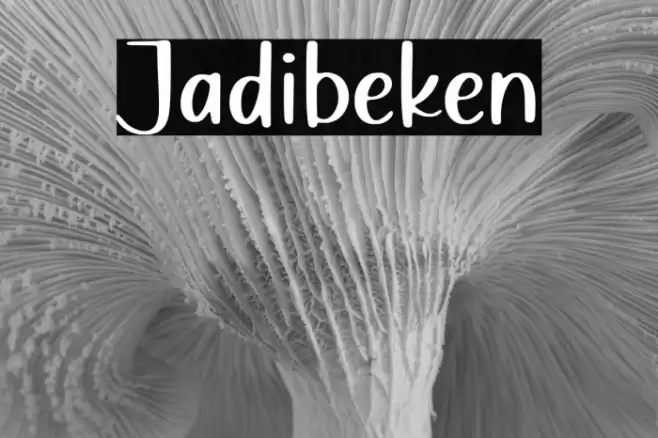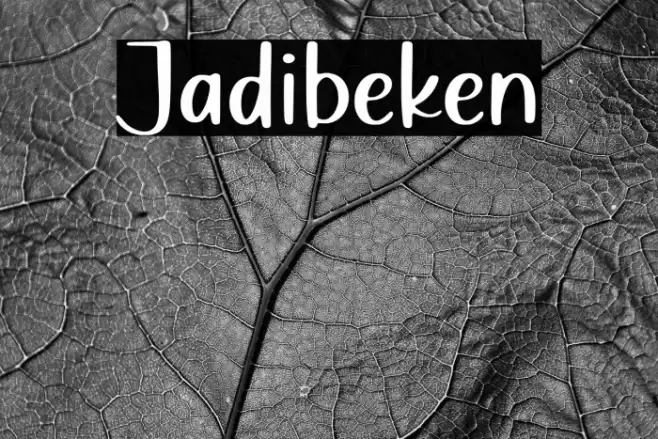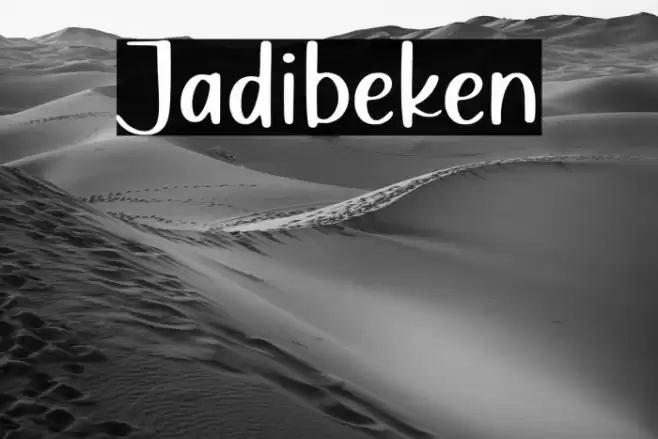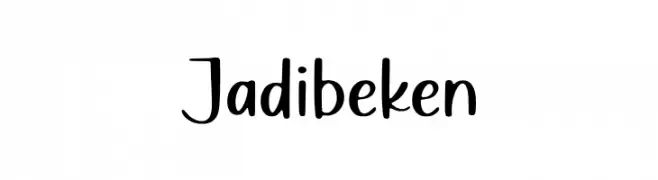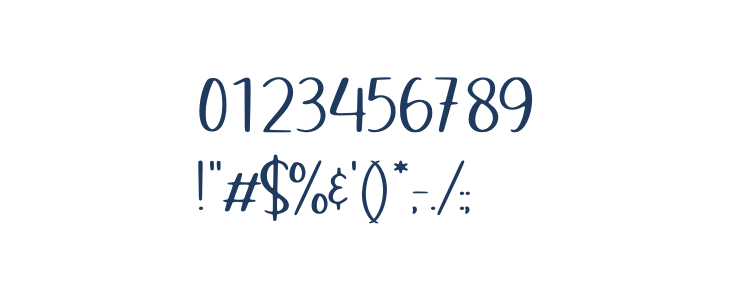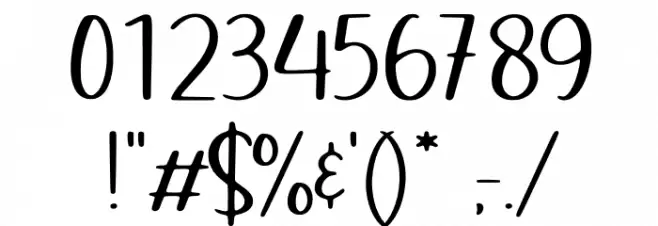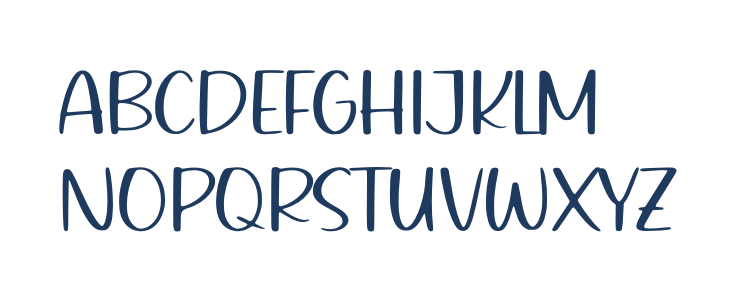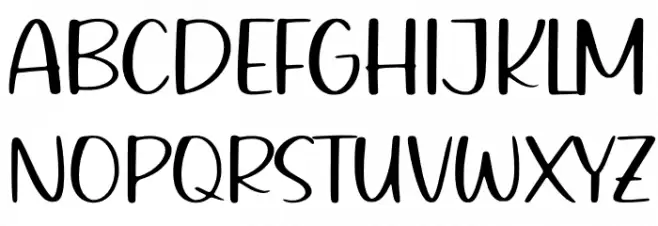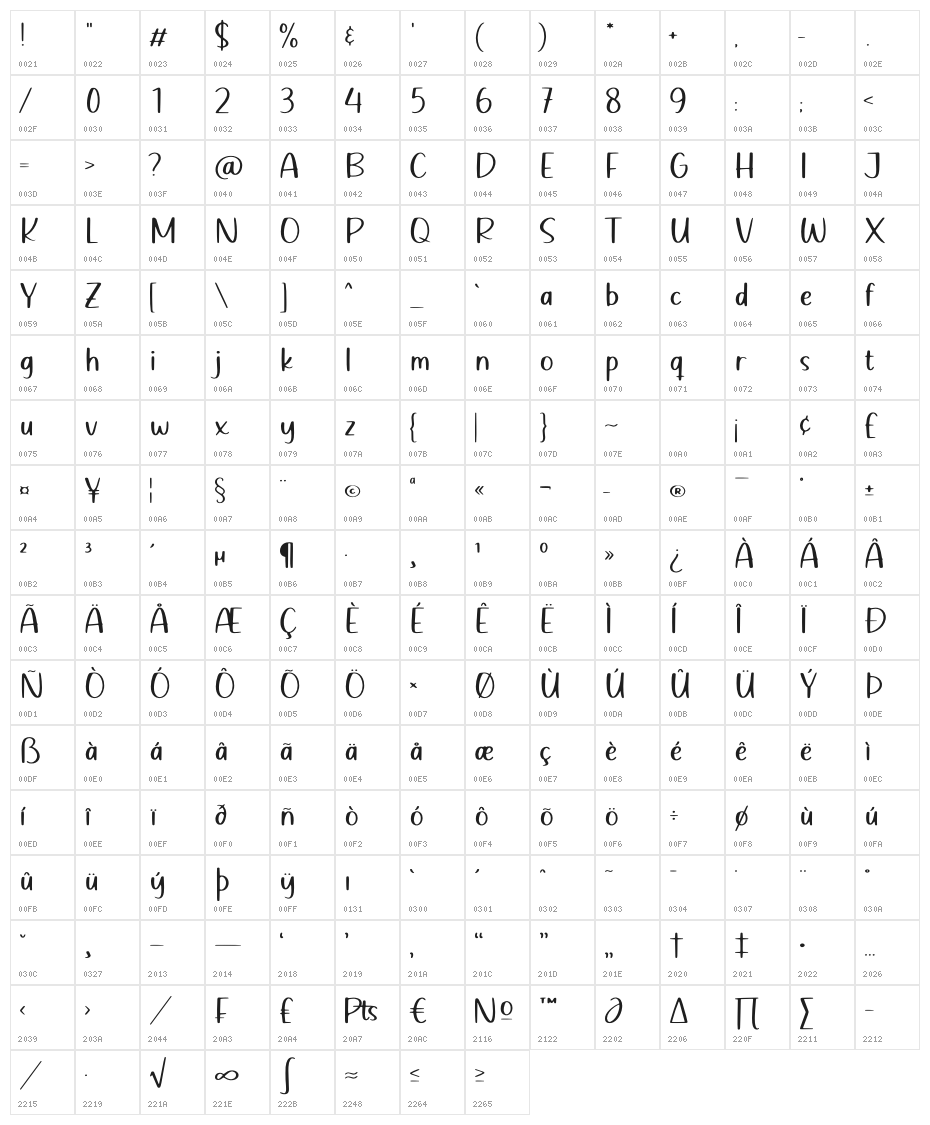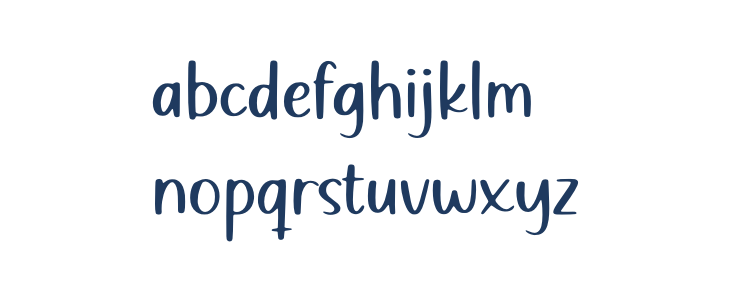
Jadibeken Font
Jadibeken Description
A casual, handwritten-style font with smooth, rounded edges and consistent stroke weight, featuring both uppercase and lowercase letters, numbers, and common punctuation marks.
Casual handwritten font with smooth, rounded strokes from Uncategorized fonts.
- Font: Jadibeken
- Proposed Projects: Informal invitations, children's books, personal notes, greeting cards, and playful branding.
- Overall Style: Casual, friendly, and approachable
- Use Case: Body text, informal headlines, and personal communication